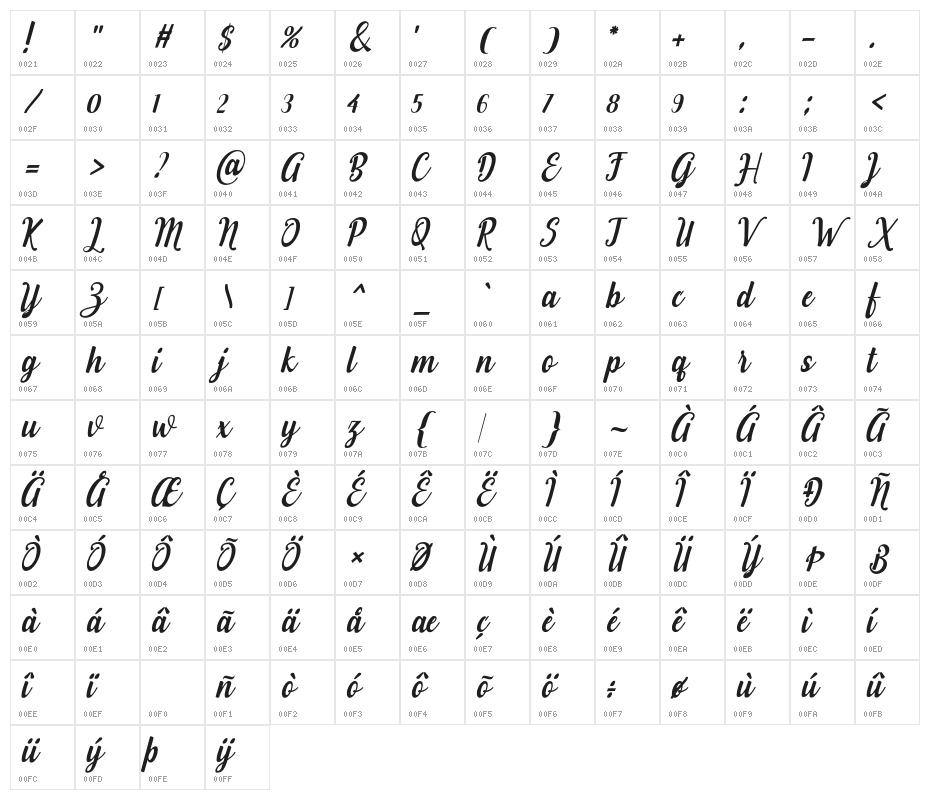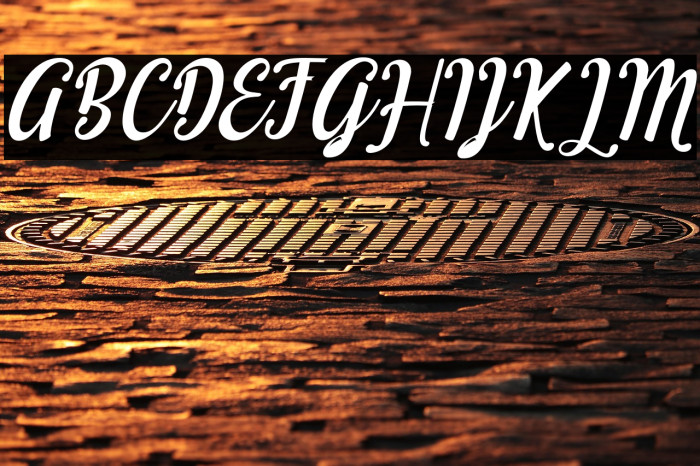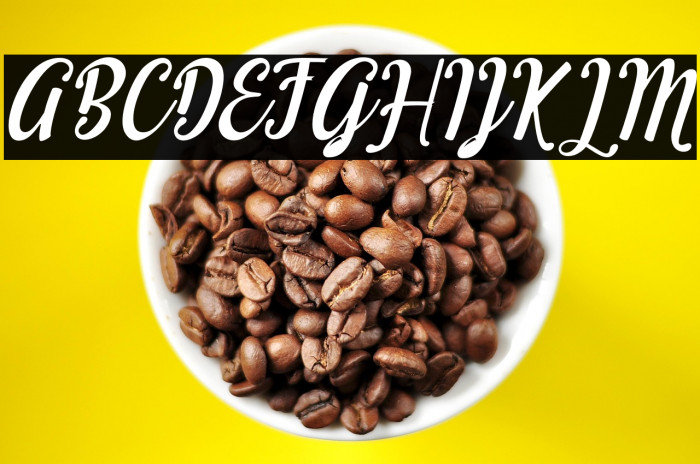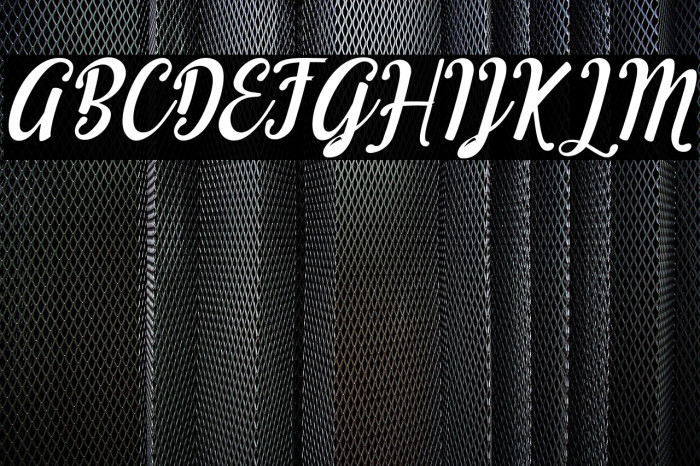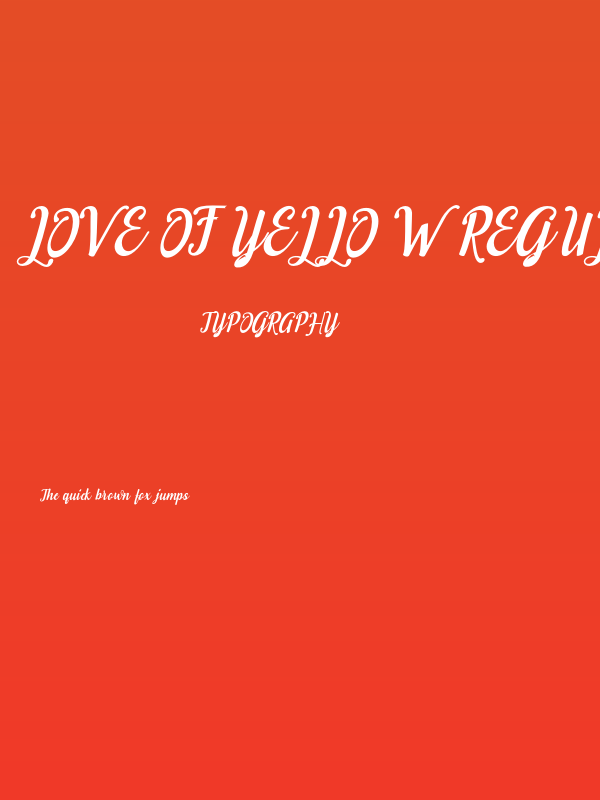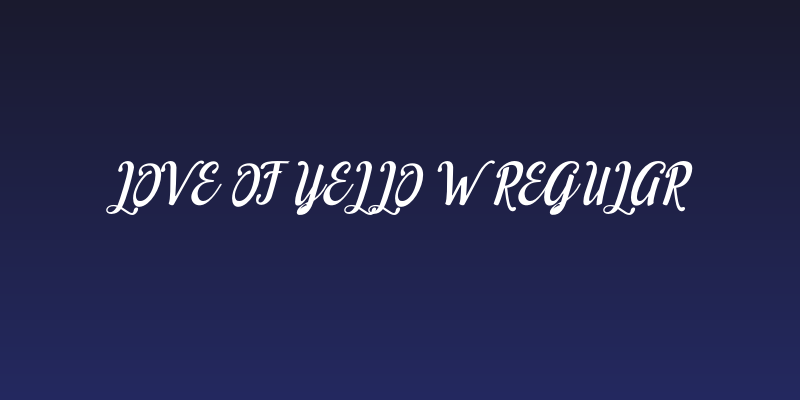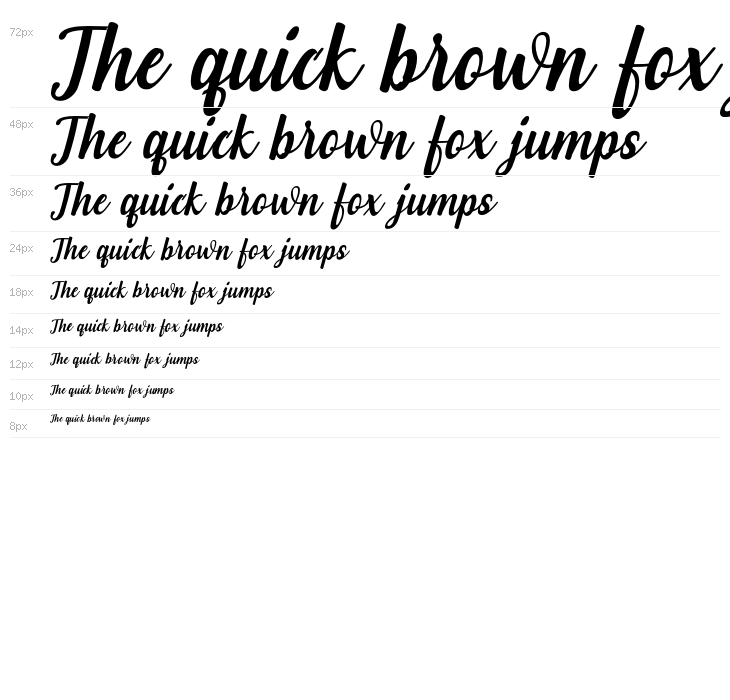
Love of Yellow Regular Font
Love of Yellow Regular Description
This font features a flowing, cursive style with elegant, sweeping strokes that give it a handwritten appearance. The letters are connected, creating a seamless and fluid look. The uppercase characters are bold and prominent, while the lowercase letters maintain a consistent flow with slightly less weight. The numerals and special characters are designed to match the overall cursive theme, adding a touch of sophistication. The font's style is both classic and modern, making it versatile for various design projects.
Overall StyleClassic
Use CaseLogos, Invitations, Decorative text
Proposed ProjectsIdeal for wedding invitations, greeting cards, branding, and elegant signage.